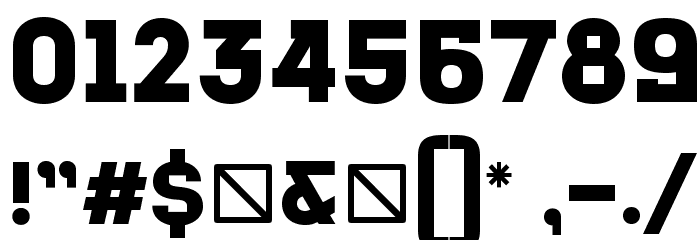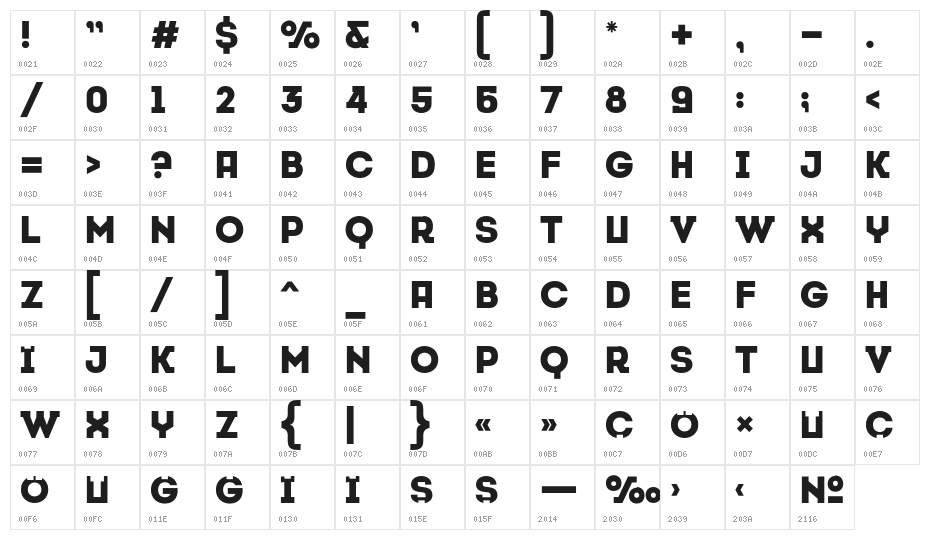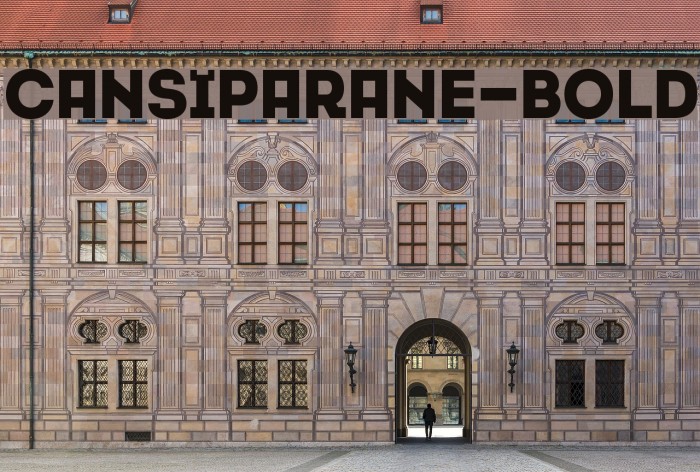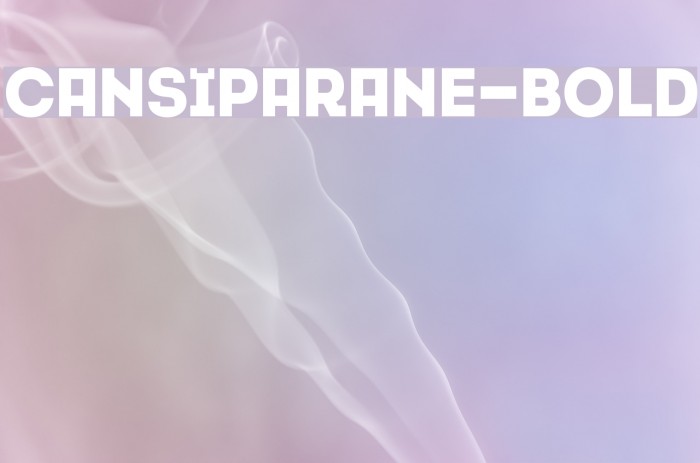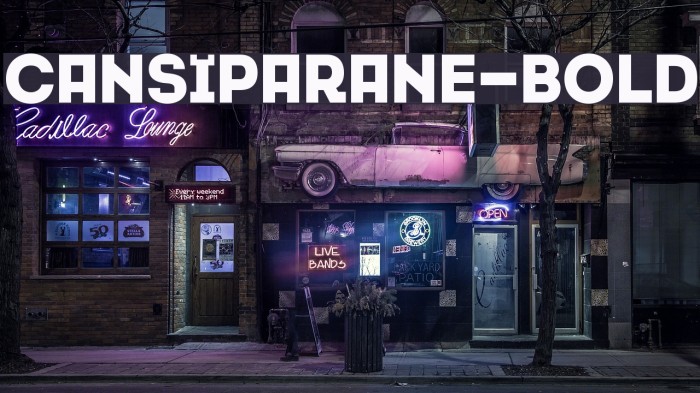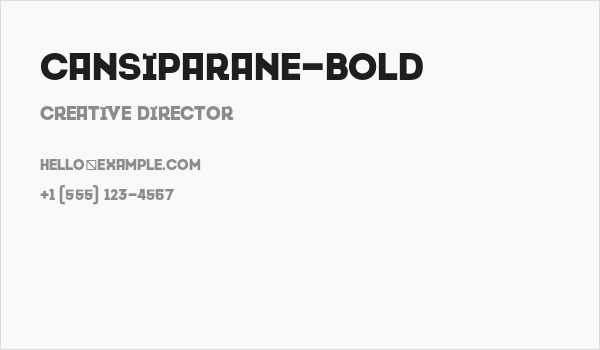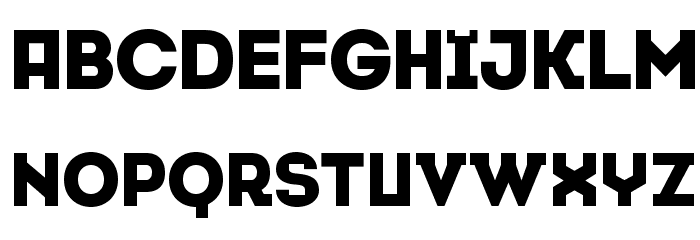
Cansiparane-Bold Font
Cansiparane-Bold Description
This font features bold, geometric letterforms with a strong presence. The characters are constructed with thick strokes and a uniform weight, giving it a robust and impactful appearance. The uppercase letters are especially prominent, with a squared-off design that emphasizes their boldness. The numerals and special characters maintain the same weight and style, ensuring consistency across all glyphs. This font's design is modern and assertive, making it suitable for attention-grabbing headlines and statements.